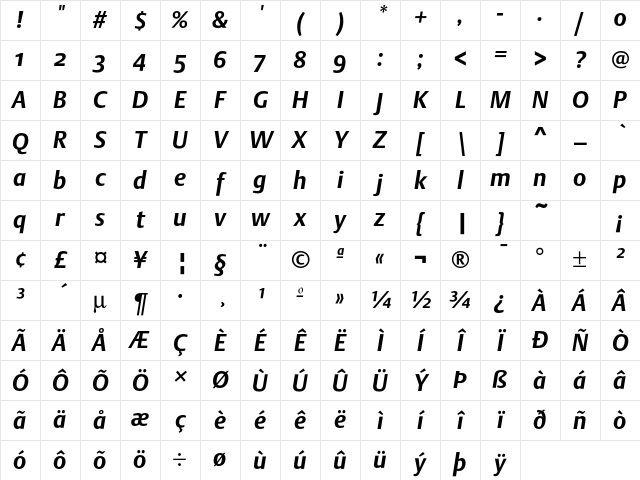
DTLArgoST BoldItalic
Design Context for DTLArgoST
DTLArgoST is a composed and adaptable typeface that performs quietly and consistently across a wide range of design contexts. The slanted form adds forward momentum and visual energy. Its bold stroke weight gives it real presence on the page.
Pro Tip: Use DTLArgoST for emphasis, pull quotes, and subheadings where its slanted energy can add rhythm to the layout.